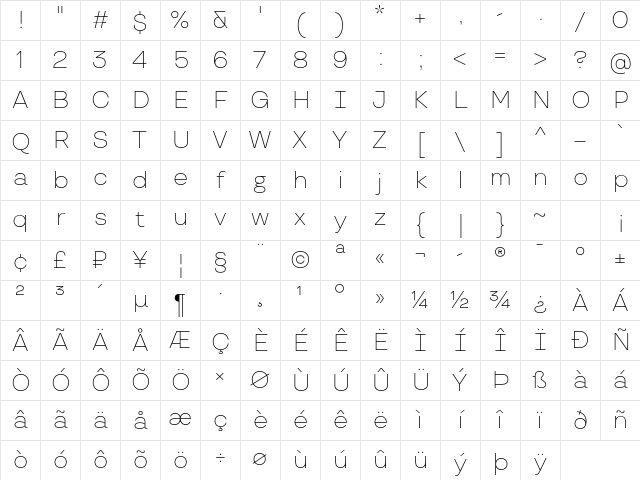
TT Travels Trl ExtraLight Free Font
TT Travels Trl ExtraLight
Style: ExtraLight
Designer: TypeType
Design Context for TT Travels Trl
TT Travels Trl is a composed and adaptable typeface that performs quietly and consistently across a wide range of design contexts. Its slender proportions lend an understated elegance to any composition.